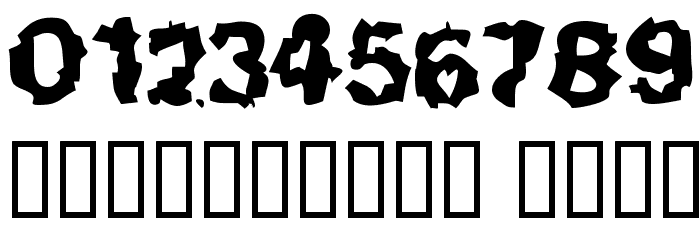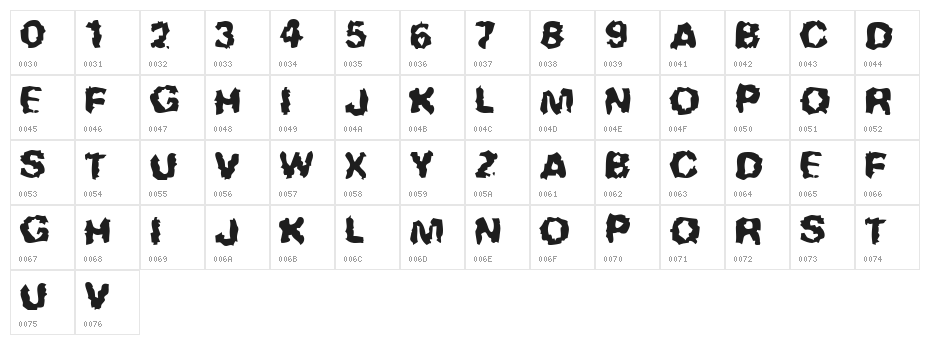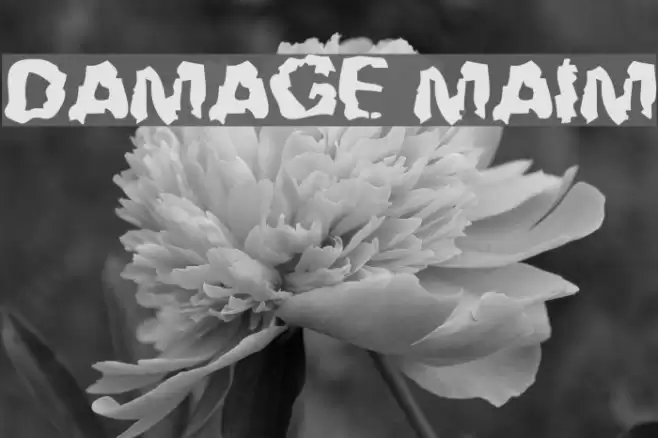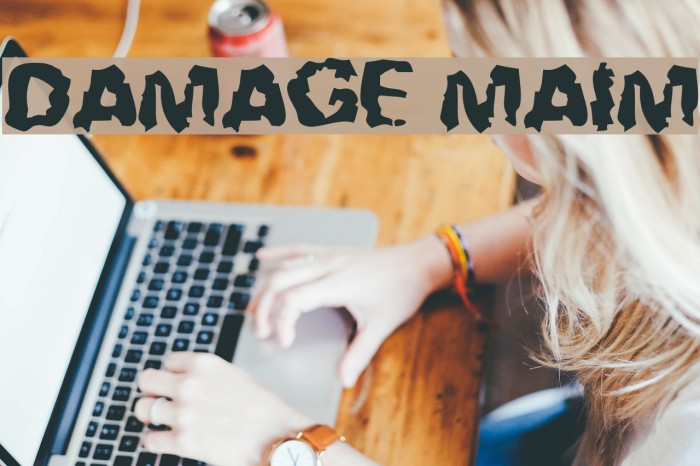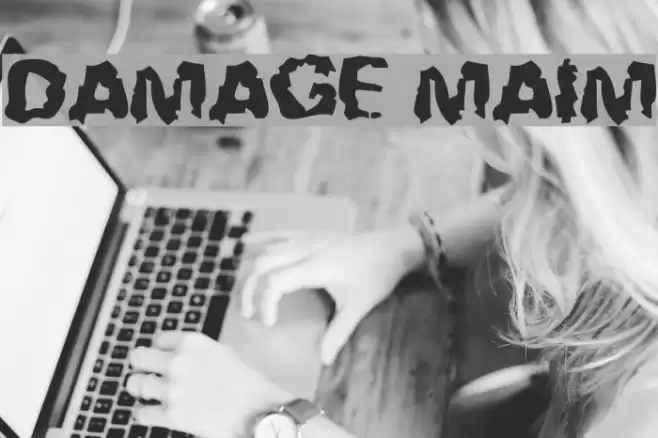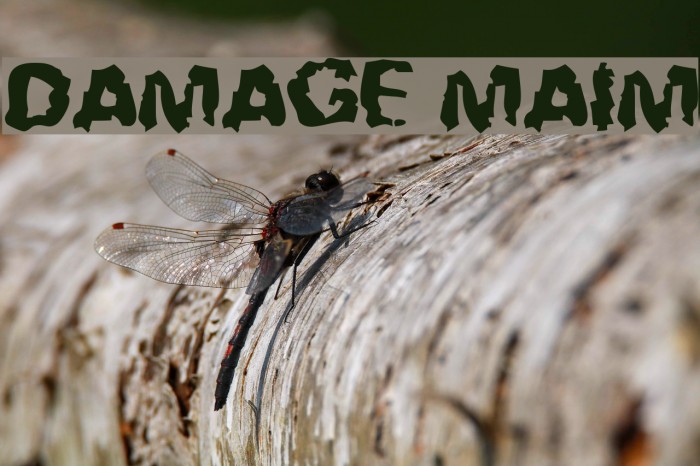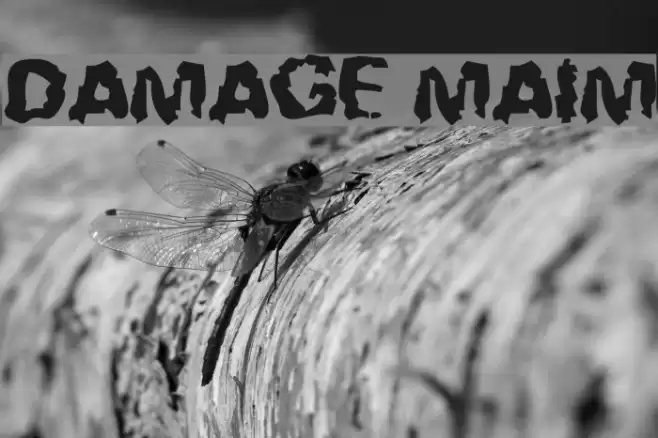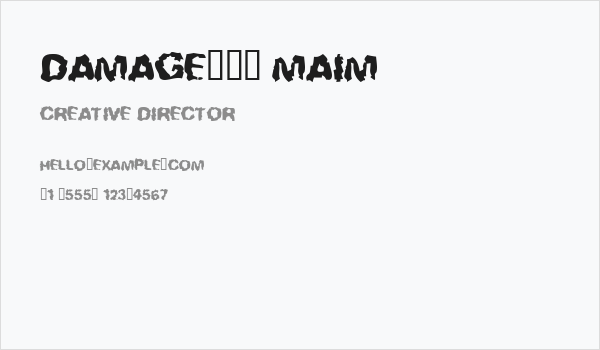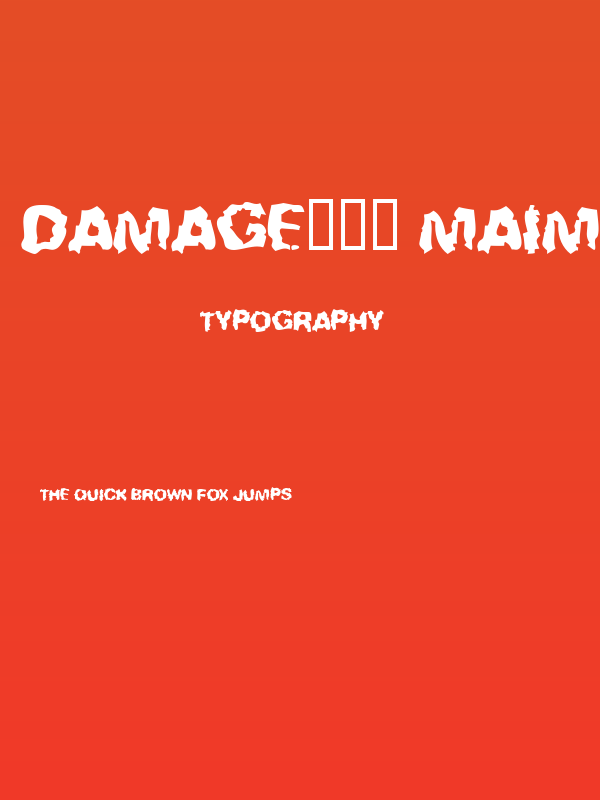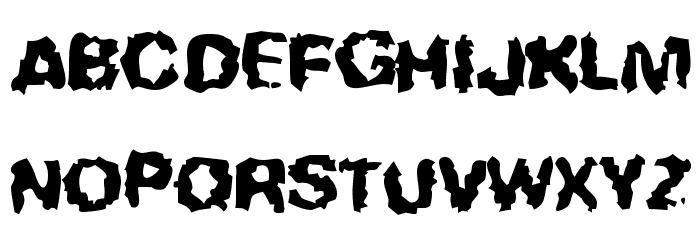
Damage!" Maim Font
Damage!" Maim Description
This font features a rugged and distressed appearance, with characters that seem to have been torn or eroded. The edges are irregular and jagged, giving it a raw and edgy feel. Each letter maintains a bold presence, yet the unevenness adds a chaotic and dynamic energy. The uppercase and lowercase letters share this distressed style, making it suitable for designs that require a strong, impactful statement. The numbers and special characters follow the same aesthetic, ensuring consistency across all text elements.
| Proposed Projects | Ideal for horror-themed posters, edgy branding, album covers, or any project needing a gritty, impactful typeface. |